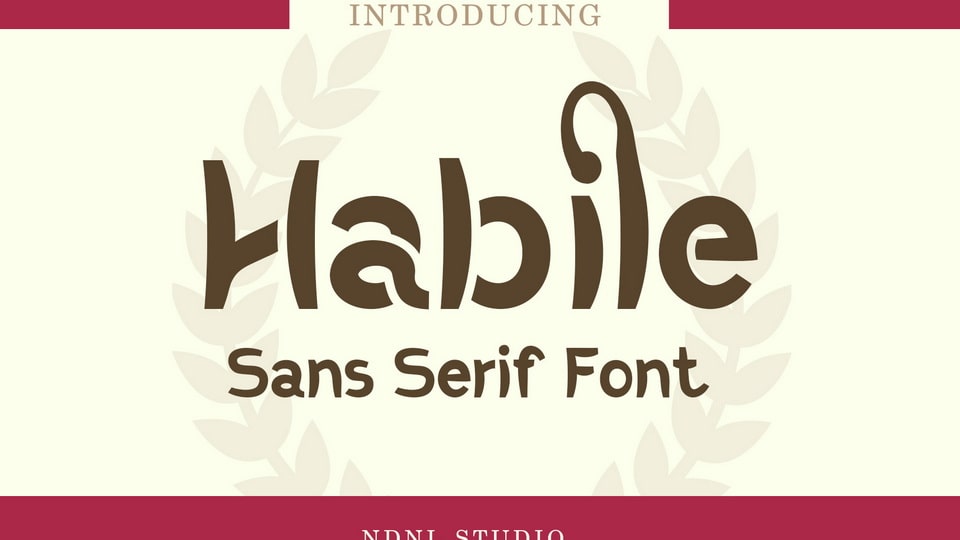
Download Habile font, a modern sans serif typeface designed with a playful and approachable spirit. Its letterforms combine soft, rounded curves with confident strokes.
Designer: NDNL Studio